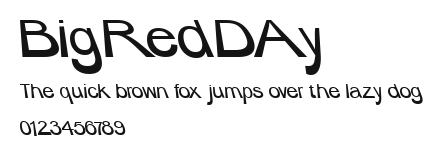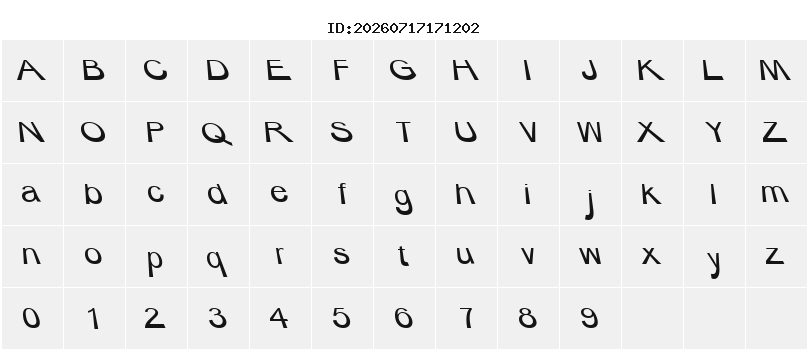
• Font Name: BigRedDAy
• Full Font Name: BigRedDAy Normal
• PostScript Name: BigRedDAyNormal
About BigRedDAy.ttf
BigRedDAy.ttf is a modern, elegant sans-serif font designed for ultimate readability and visual harmony. Perfect for branding, headlines, web design, and print materials.